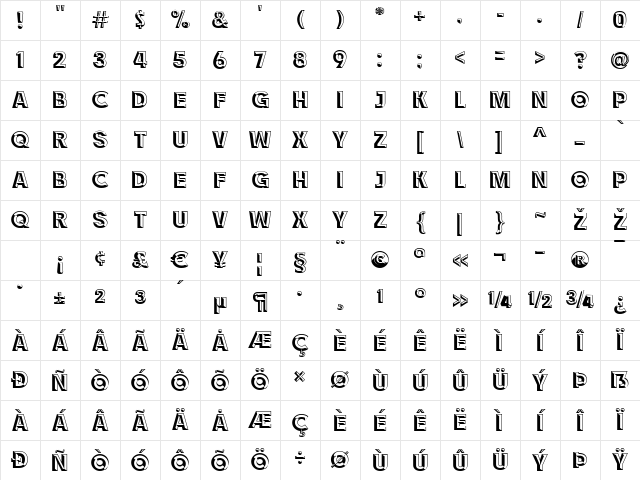
Complete RACE1 Brannt Chiseled NCV Regular glyph index. Displaying only characters natively supported by RACE1 Brannt Chiseled NCV Regular font.
RACE1 Brannt Chiseled NCV is a composed and adaptable typeface that performs quietly and consistently across a wide range of design contexts.